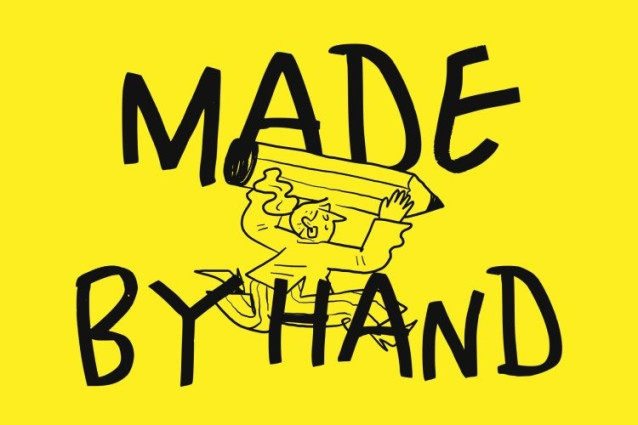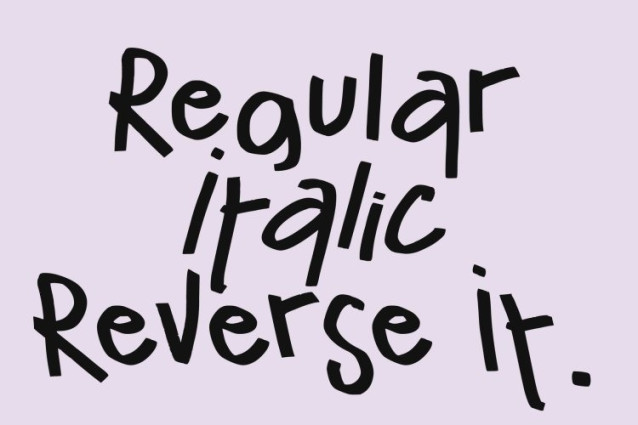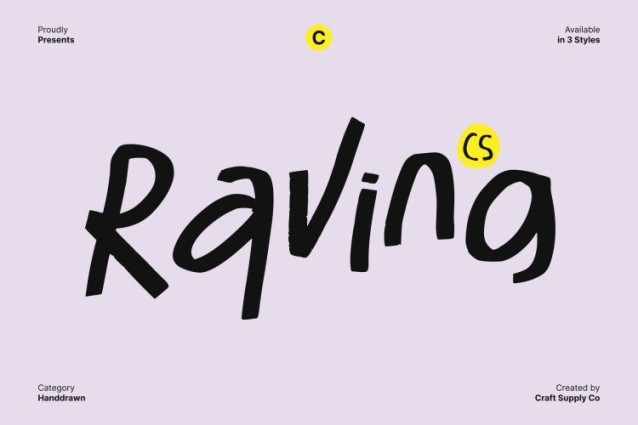
CS Raving Font
CS Raving Font This is a messy handwritten display font designed to capture the energy of irregular, freely scribbled strokes. Its gritty and stylish aesthetic gives each character a natural, hand-drawn feel, perfect for designs that want to convey authenticity and personality.
Marker-Inspired Style
Inspired by marker lettering, this font combines boldness with spontaneity. The irregular lines and playful forms make the text feel alive, giving your designs a casual, energetic, and unique appearance. This style works especially well for children’s projects, creative branding, and informal communications.
Versatile for Fun Designs
Despite its chaotic charm, this font is highly versatile. It adapts beautifully to posters, social media graphics, packaging, and other playful designs where personality and visual impact are essential. Its lively strokes ensure your message stands out while maintaining readability.
Expressive and Natural
With its freeform, handwritten aesthetic, this font conveys a sense of freedom and creativity. Ideal for playful, fun, and imaginative projects, it adds a natural, human touch that engages audiences and enhances any creative work with charm and energy.